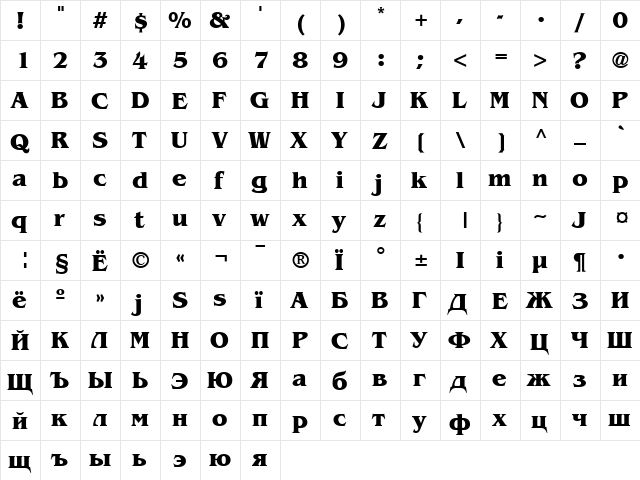
AGBenguiatCyr-Bold Bold
Design Context for AGBenguiatCyr-Bold Typeface
AGBenguiatCyr-Bold is a composed and adaptable typeface that performs quietly and consistently across a wide range of design contexts. The heavy weight commands attention and anchors typographic hierarchies.